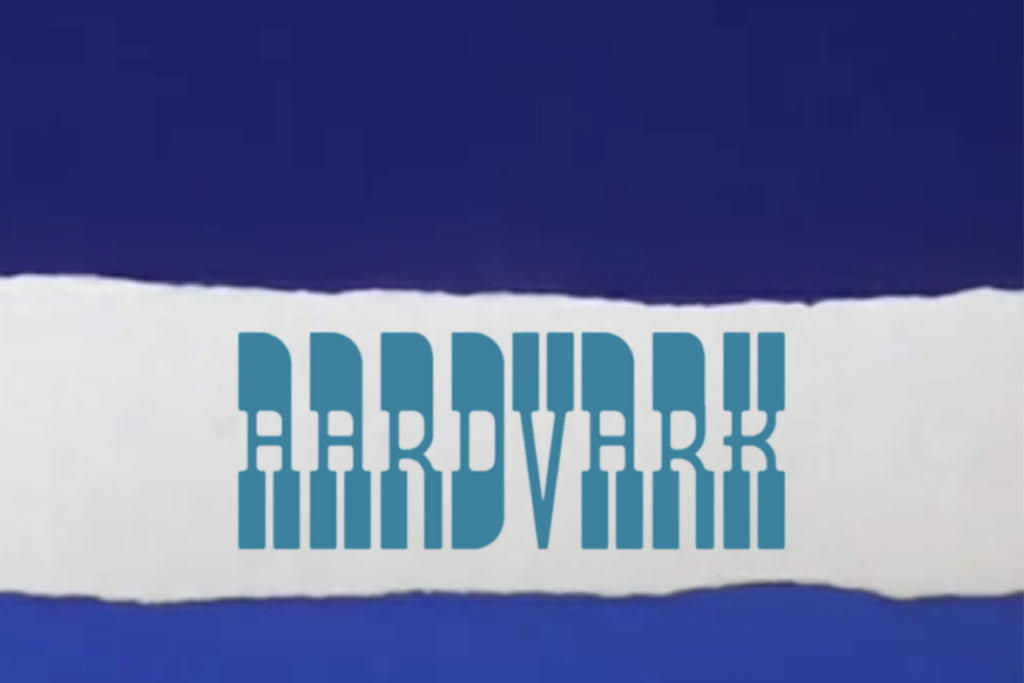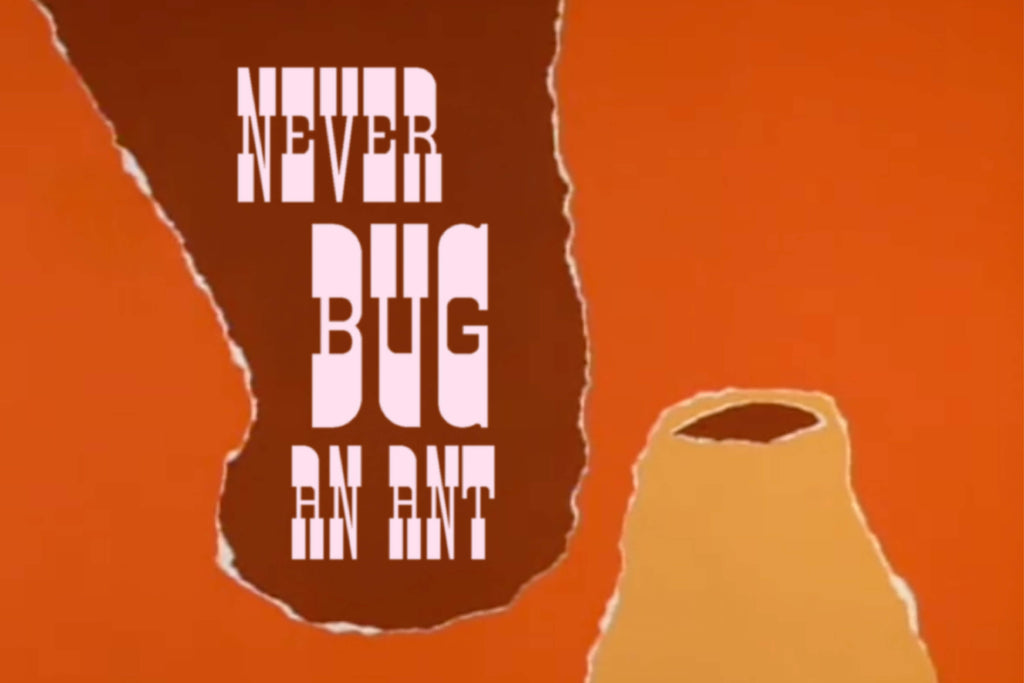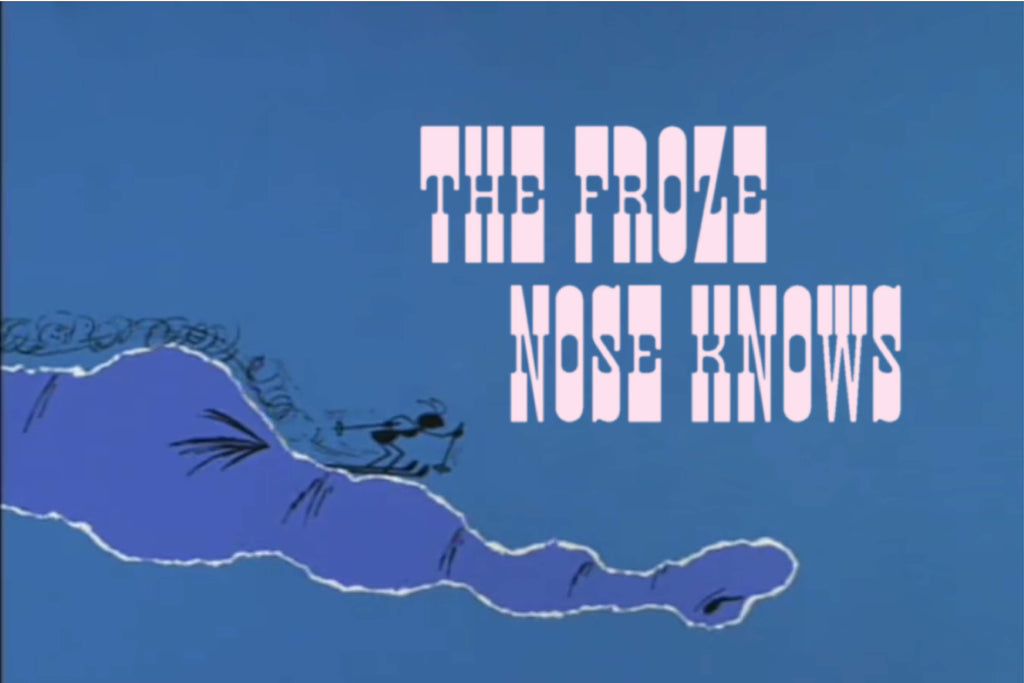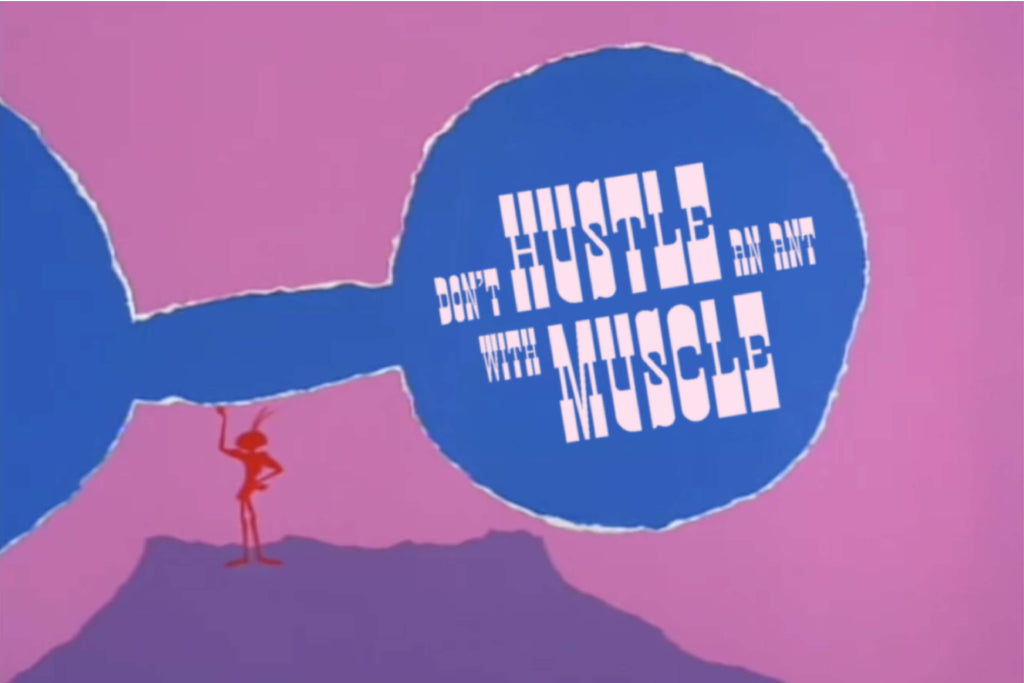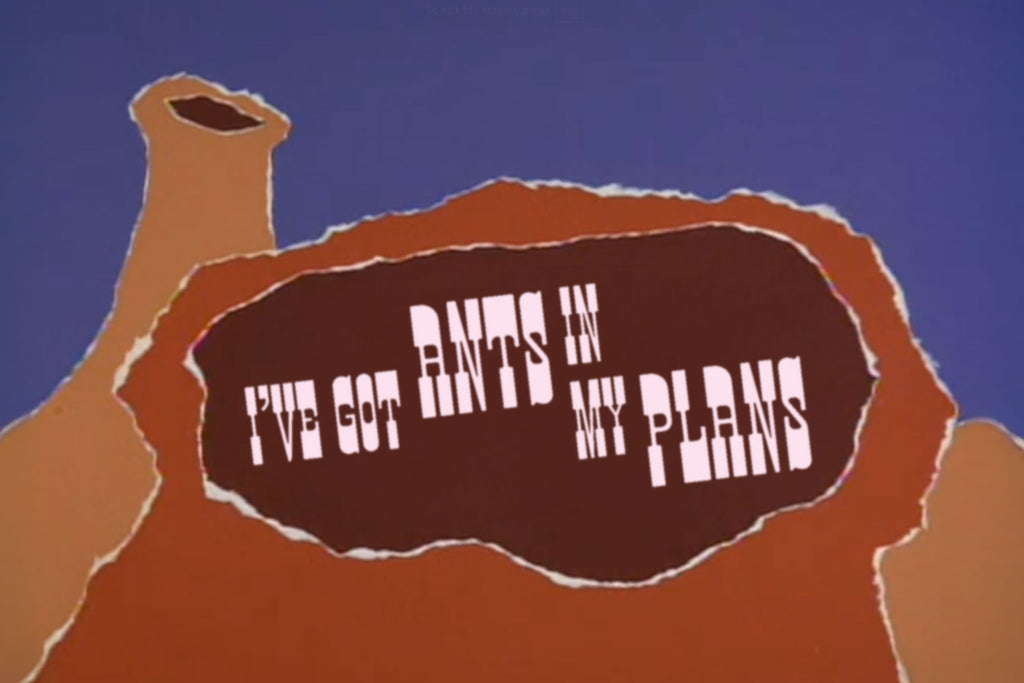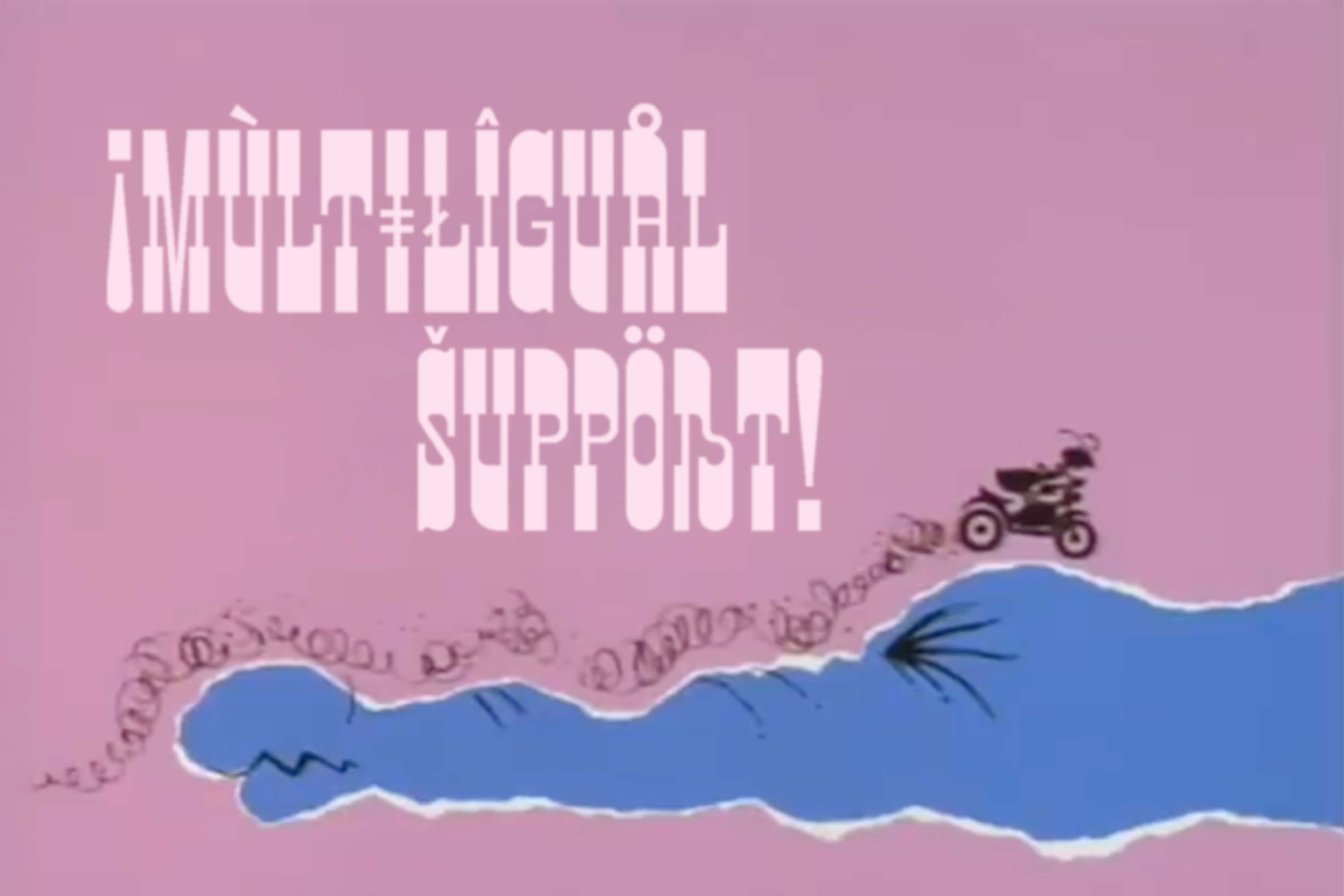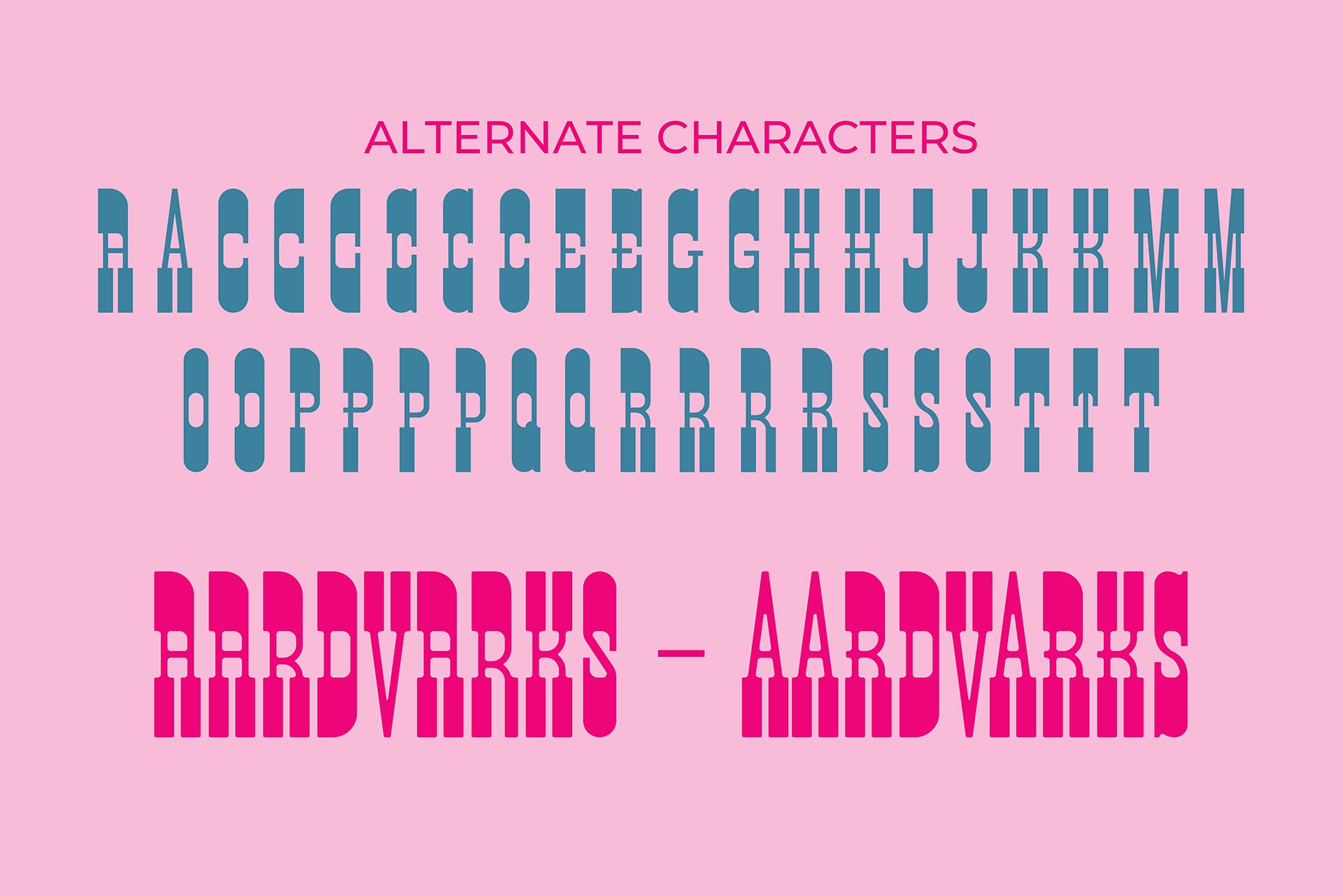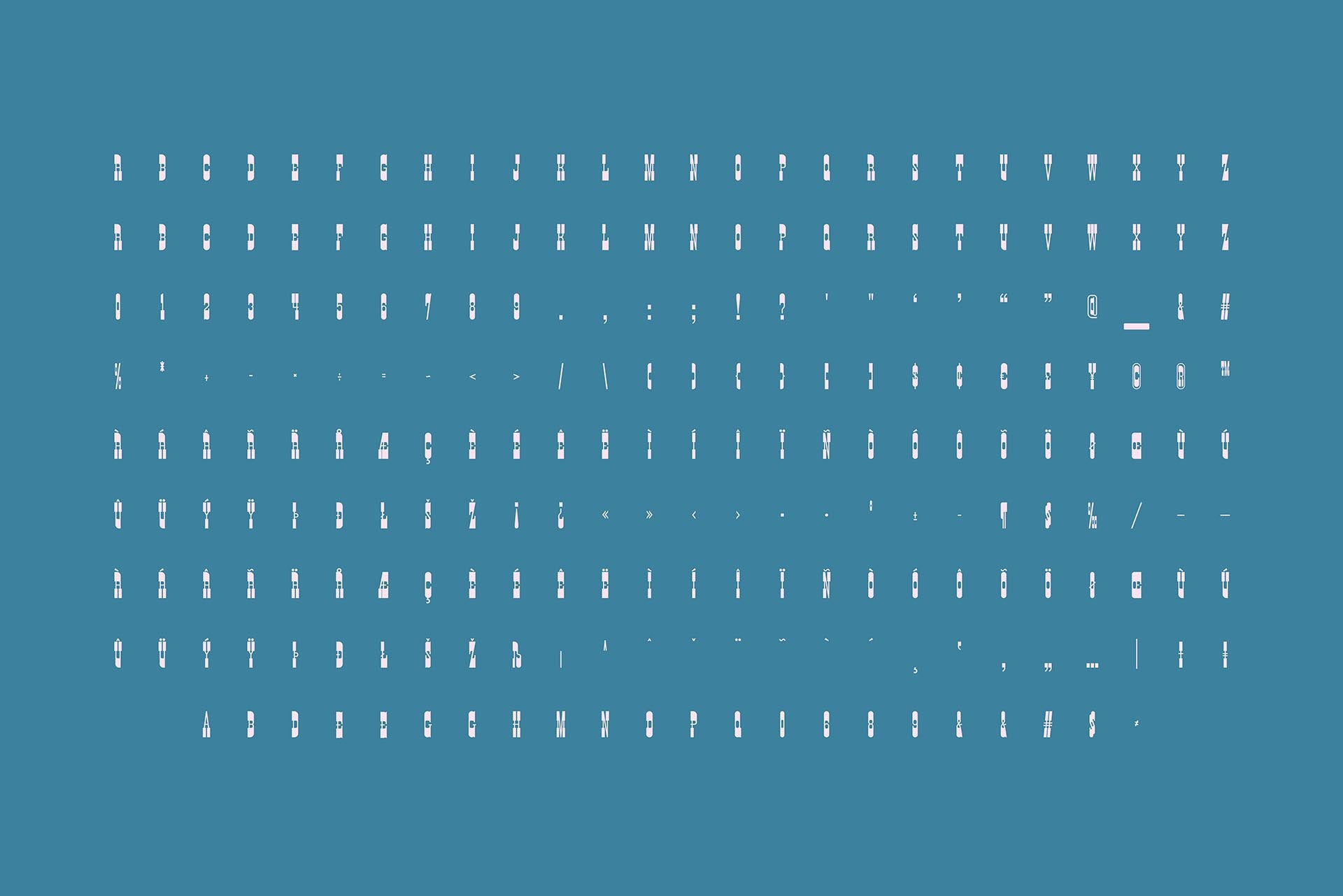
Aardvark Typeface
Aardvark is a bold, character-driven display typeface inspired by mid-century animation, retro title cards, and playful editorial typography. With its tall proportions, sculpted curves, and distinctive cut-in details, Aardvark balances strength and humor—because great headlines should never be antsy.
Built to stand out (and stand tall), Aardvark thrives in posters, album covers, branding, packaging, and motion graphics. Its extensive alternates and multilingual support give designers plenty to chew on, letting layouts feel expressive, dynamic, and never short on personality.
Like its namesake, Aardvark has a big presence and a healthy appetite for attention. Drop it into your designs and watch it dig in—no ant left un-noticed.